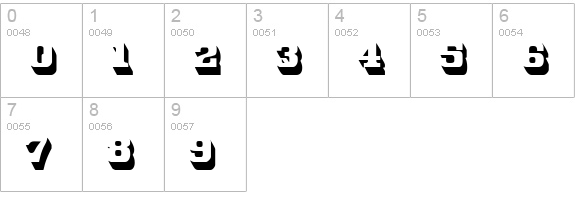
White Bold is a strong, high-contrast variant in the White typeface family \xE2\x80\x94 well suited to headlines, attention-grabbing titles, and strong calls-to-action.
Introducing White Bold font, a modern and stylish typeface designed to make a bold statement. This font exudes confidence and sophistication, with its strong and clean lines that demand attention. With its perfect balance of elegance and strength, White Bold font is the perfect choice for any project that requires a touch of sophistication and a hint of daring. But what sets White Bold font apart from the rest? It's not just its stunning aesthetics, but also its availability. Unlike many other fonts on the market, White Bold font is freely available to download at FontsMarket.com. Yes, you read that right - completely free! Now you can bring a touch of elegance and boldness to your designs without breaking the bank. Whether you're designing a logo, creating a website, or crafting eye-catching headlines, White Bold font is here to elevate your work to new heights. Its sleek and versatile design allows it to seamlessly blend into any project, while still making a powerful impact. With its wide range of weights and styles, White Bold font offers endless possibilities to unleash your creativity. So why wait? Don't miss out on the opportunity to enhance your designs with the stunning White Bold font. Head over to FontsMarket.com and download it for free today. Elevate your designs, captivate your audience, and make a lasting impression with White Bold font.